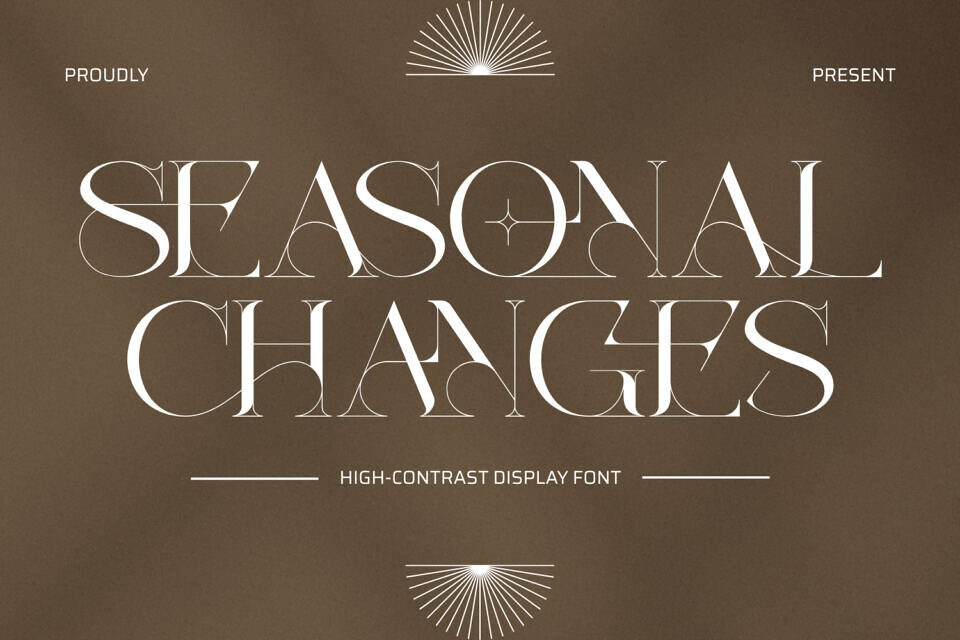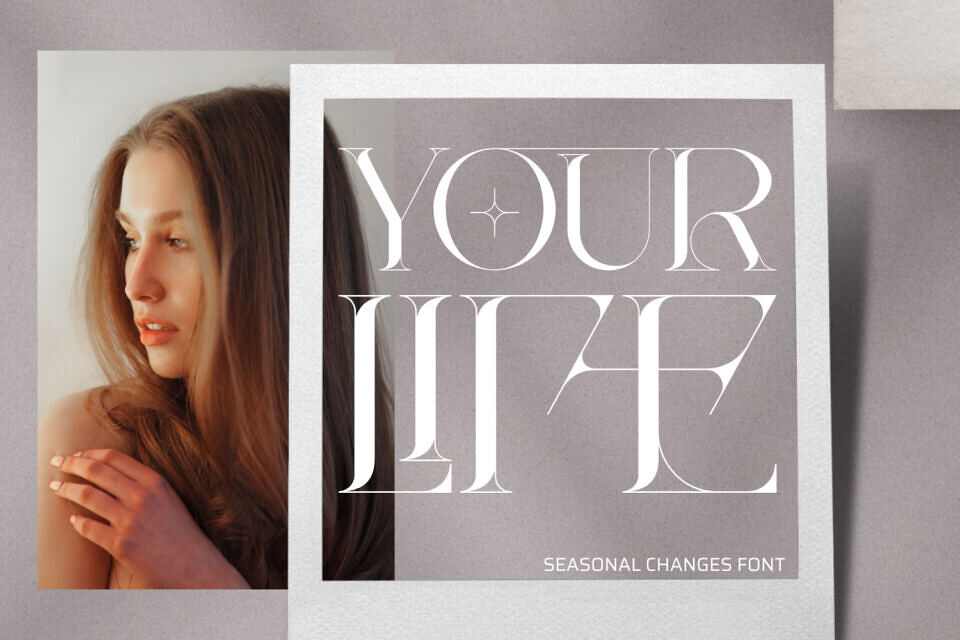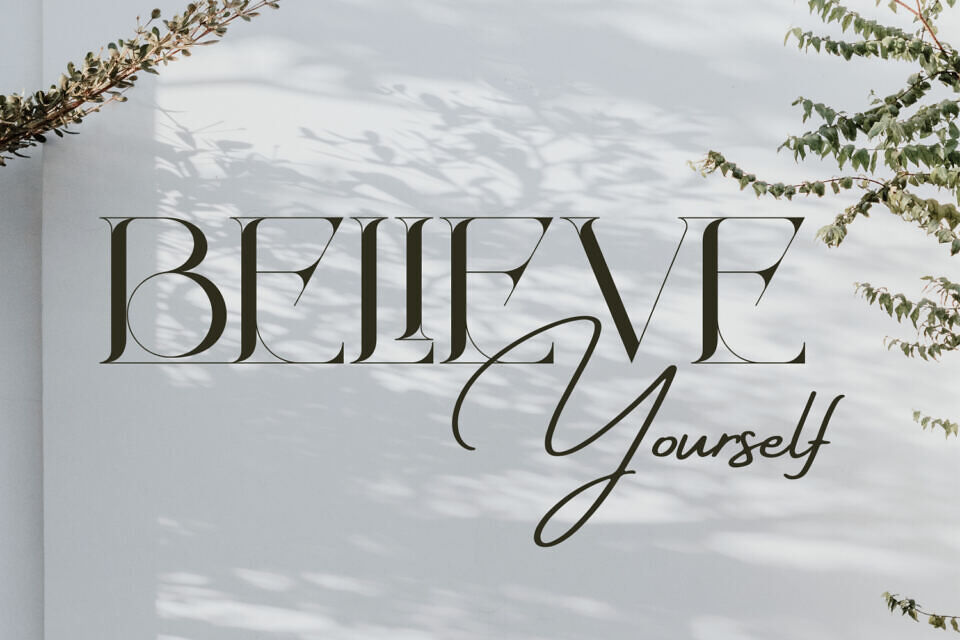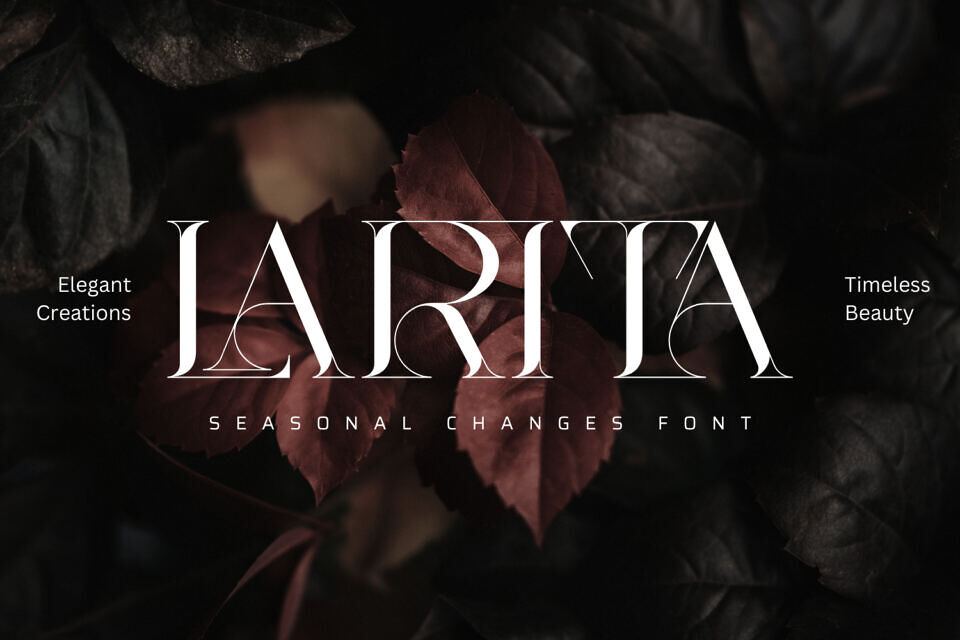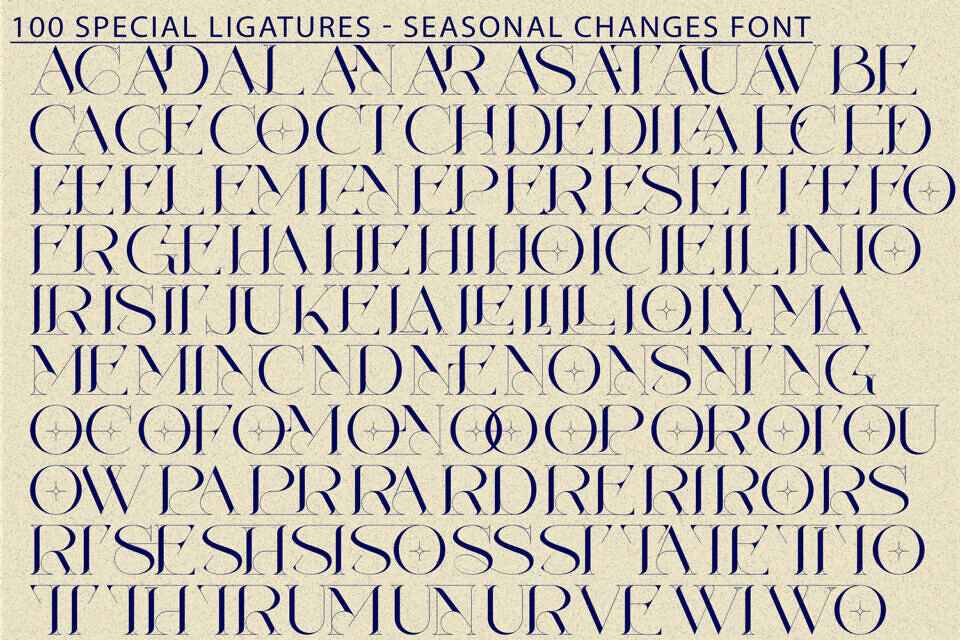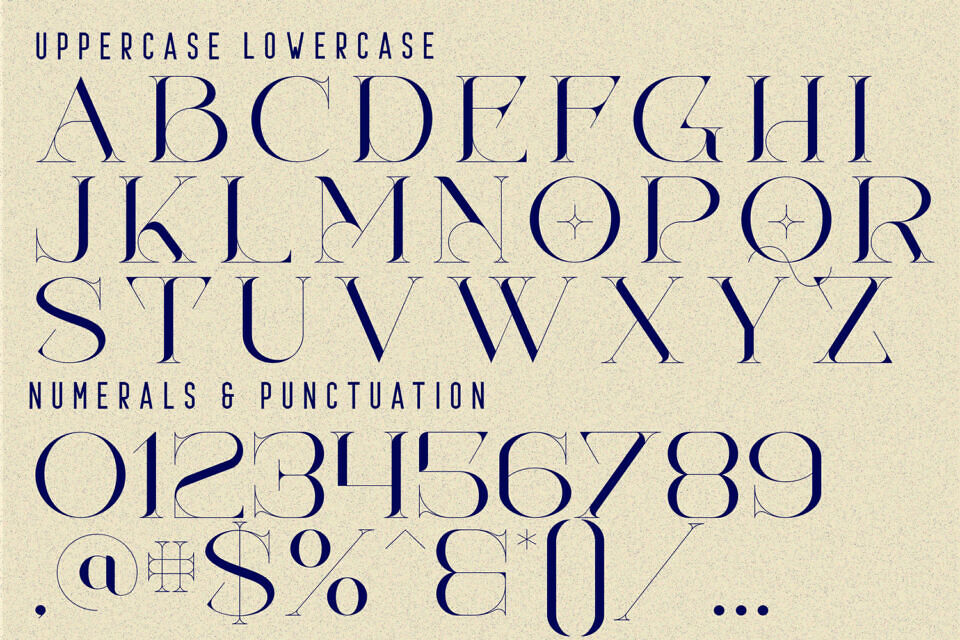
Seasonal Changes Font
Seasonal Changes is a modern luxury high-contrast serif display typeface inspired by classic Didone elegance and contemporary editorial design. Featuring dramatic thick-to-thin transitions, refined proportions, and delicate ornamental curves, this typeface delivers a luxurious and sophisticated presence.
The elegant letterforms are enhanced with subtle geometric details that add depth and character without overpowering readability. Seasonal Changes is perfect for fashion editorials, luxury branding, perfume packaging, high-end logos, and premium design projects that demand timeless refinement.